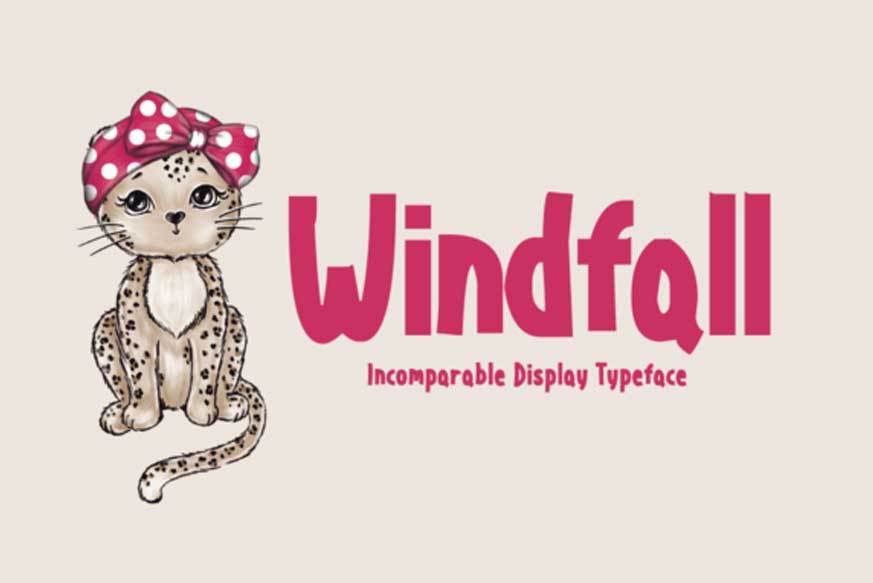
Windfall Font
Windfall is an incomparable, bold and fun display font with a cute twist. It will add a subtle touch of whimsicality to any design idea!